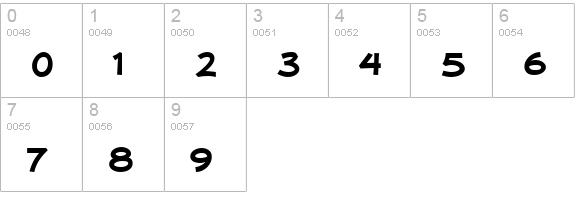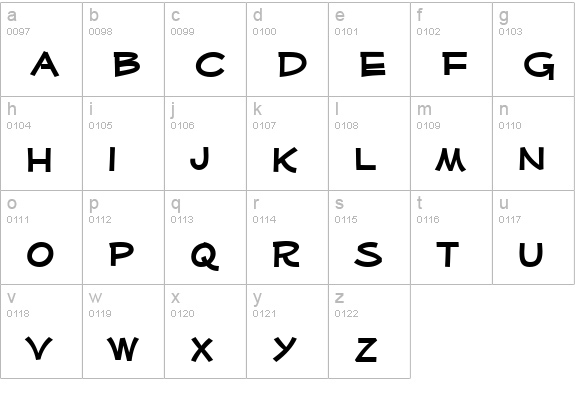
Mufferaw Xp Bold is a strong, high-contrast variant in the Mufferaw typeface family \xE2\x80\x94 well suited to headlines, attention-grabbing titles, and strong calls-to-action.
Mufferaw Xp Bold font is a bold and eye-catching typeface that exudes strength and modernity. With its clean lines and distinctive style, this font is perfect for making a bold statement in any design project. Whether you're creating a poster, logo, or website, Mufferaw Xp Bold font will grab attention and leave a lasting impression. The best part? Mufferaw Xp Bold font is completely free to download at FontsMarket.com. You can easily add this versatile font to your collection without any cost, making it a valuable resource for all your design needs. Take advantage of this opportunity to enhance your projects with the impactful Mufferaw Xp Bold font today!